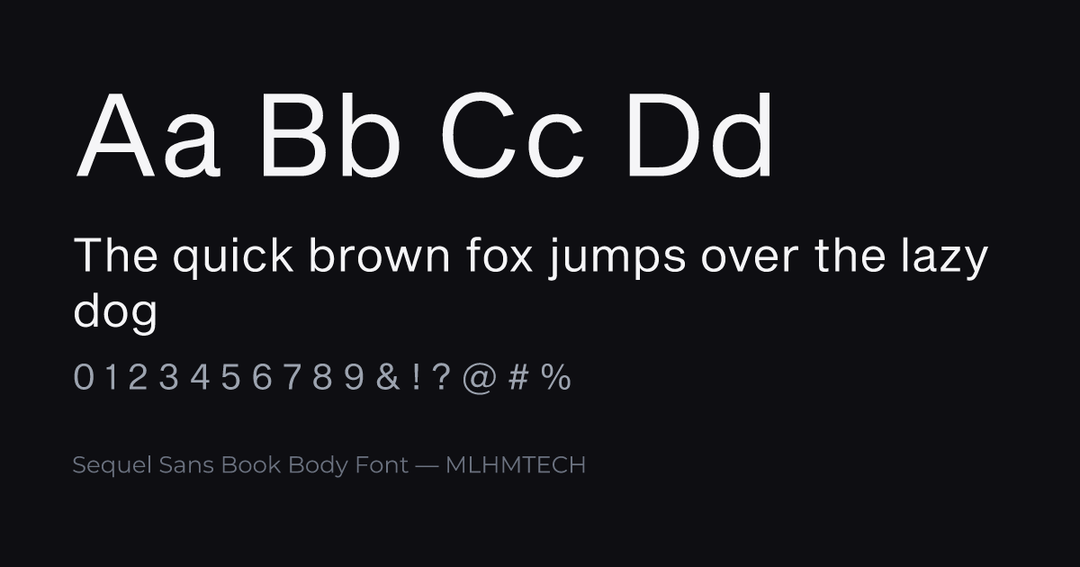
Sequel Sans Book Body Font
Sequel Sans Book Body is a versatile sans-serif font designed for clear, readable body text. Its clean lines and modern proportions make it a great choice for video titles, lower thirds, and graphic overlays.
Sequel Sans Book Body is a high-quality sans-serif typeface that excels in body text settings. Its open apertures and even stroke weights ensure excellent legibility at small sizes, making it perfect for captions, subtitles, and on-screen text in video projects. The font's neutral yet friendly character allows it to blend seamlessly with various design styles, from corporate presentations to creative social media content.\n\nThis font file is part of the Handpicked Fonts collection, curated for creative professionals. Whether you're editing a documentary, designing a motion graphic, or crafting a thumbnail, Sequel Sans Book Body provides a reliable and elegant typographic foundation. Its clean aesthetics reduce visual noise, letting your visuals shine.\n\nFor video editors and designers, this font pairs well with bold display fonts for headings, creating a clear hierarchy. Use it for interview subtitles, product descriptions, or any text-heavy graphic where readability is key. The font is compatible with all major design and video editing software that supports TTF files.